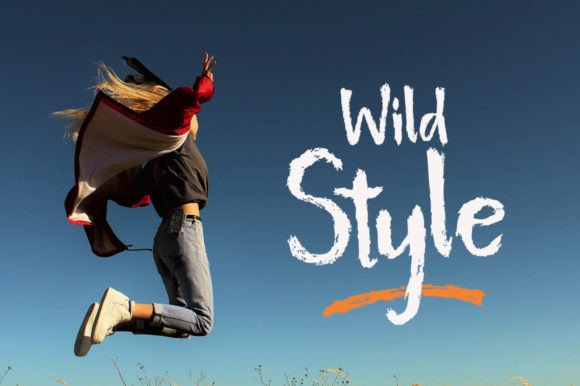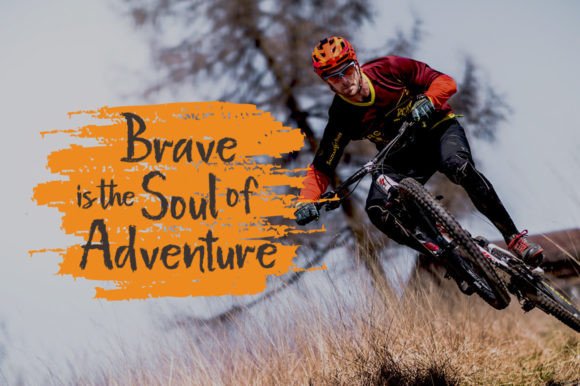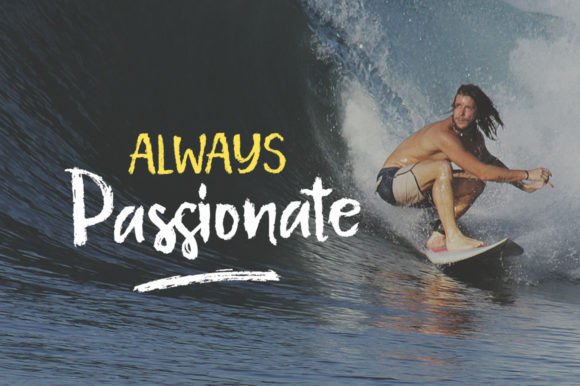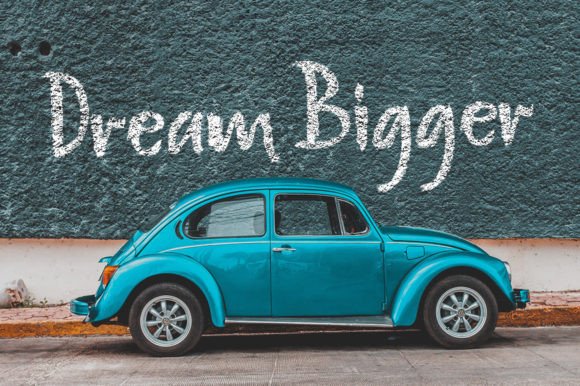
Gastelou Font: Elevate Your Designs with a Touch of Casual Elegance
In the world of typography, fonts play a crucial role in conveying the tone and personality of a design. For designers and crafters seeking to add a personal and artistic touch to their work, Gastelou font is an excellent choice. This charming, handcrafted brush typeface exudes casual elegance, making it perfect for a variety of creative projects.
The Unique Characteristics of Gastelou Font
Gastelou font boasts flowing strokes and an organic texture that brings warmth and authenticity to designs. Its handcrafted nature gives it a distinctive, human touch that sets it apart from more traditional typefaces. The font’s casual elegance makes it versatile enough to be used for invitations, branding, and a wide range of creative projects.
Adding a Personal Flair to Your Designs
One of the standout features of Gastelou font is its ability to add a personal and artistic flair to designs. The font’s unique character and charm can help designers and crafters create pieces that capture attention and leave a lasting impression. Whether you’re working on a wedding invitation, a brand identity, or a creative project, Gastelou font can help you achieve a distinctive look that resonates with your audience.
Gastelou font’s versatility makes it suitable for a wide range of applications. Here are some of the ways you can use this beautiful font:
- Invitations: Add a touch of elegance and sophistication to your wedding invitations, birthday party invites, or any other special occasion.
- Branding: Use Gastelou font to create a unique and memorable brand identity that stands out from the crowd.
- Creative Projects: From art journals to craft tutorials, Gastelou font can add a personal and artistic touch to your creative projects.
Why Choose Gastelou Font?
With so many fonts available, why choose Gastelou? Here are a few compelling reasons:
- Unique and Handcrafted: Gastelou font is a one-of-a-kind, handcrafted typeface that adds a personal touch to your designs.
- Casual Elegance: The font’s flowing strokes and organic texture bring a touch of warmth and authenticity to your designs.
- Versatile: Gastelou font can be used for a wide range of applications, from invitations to branding and creative projects.
Tips for Using Gastelou Font Effectively
To get the most out of Gastelou font, here are a few tips to keep in mind:
- Pair it with Other Fonts: Experiment with pairing Gastelou font with other fonts to create a unique and visually appealing combination.
- Use it for Headlines: Gastelou font is perfect for headlines and titles, where its flowing strokes and organic texture can really shine.
Gastelou font is a charming and handcrafted brush typeface that can elevate your designs with a touch of casual elegance. Its unique characteristics, versatility, and ability to add a personal and artistic flair make it an excellent choice for designers and crafters. Whether you’re working on invitations, branding, or creative projects, Gastelou font is sure to capture attention and create a lasting impression.
Get Ready to Elevate Your Designs with Gastelou Font